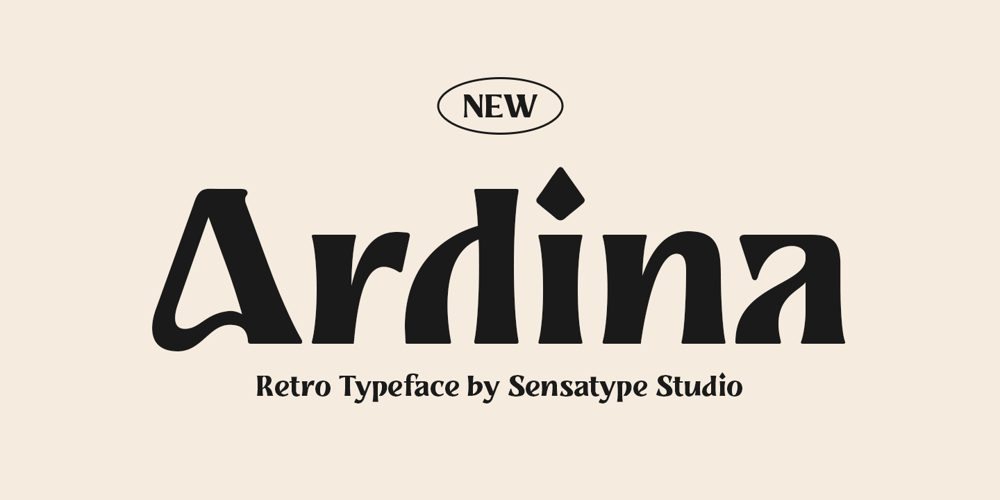
Ardina Font Family was designed by Zamroni Hamzah and published by Sensatype Studio. Ardina contains 1 styles and family package options. Ardina typeface is an old-style, retro, unique, and versatile vintage typeface with Special character, ready for branding and stand out. It is a display typeface with a unique curve that perfect for branding projects, logo, wedding designs, social media posts, advertisements, product packaging, product designs, label, photography, watermark, invitation, stationery, and any projects, it makes with a high level of legibility.What’s Included: Character set A-Z Uppercase & Lowercase Numerals & Punctuation Accented Characters (West Europe) Ligature & Character alternate Works on PC & Mac Recommended using Adobe Illustrator or Adobe Photoshop and wish you enjoy our font. 🙂